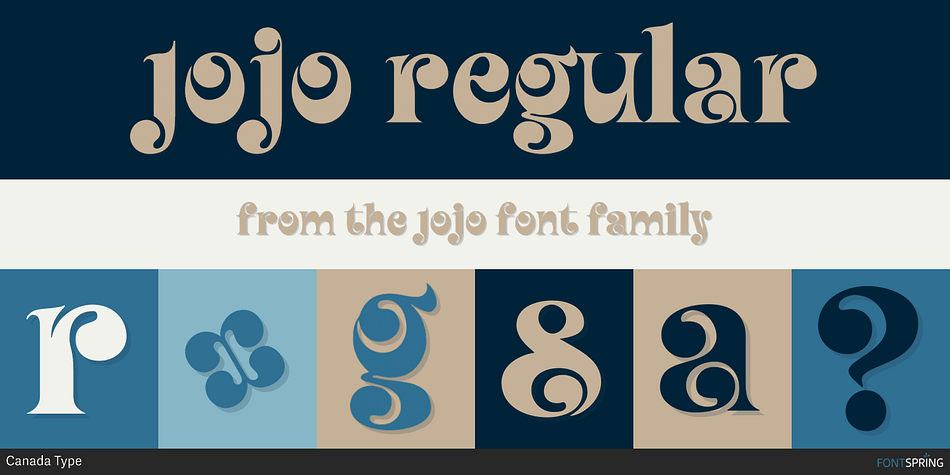
Jojo is a retro font published by Canada Type.
A little more flower and a little less power, please.
Fun, friendly, fashionable, and feminine to a fault, Jojo takes display typography to a whole new level, where eyes can’t help but appreciate the day and the design at hand. It takes a graphic designer very little imagination to see these letters on posters, book covers, clothes, and craft paraphernalia. Or how about a sign over a bakery? A music sleeve? A romantic comedy titling? Cosmetics products? Pretty much anywhere!
Jojo takes its name from a Beatles song about getting back to where we once belonged. It also takes most of its shapes from vintage photo-setting times, when an art nouveau typeface called Spring, by Bernice Jacquet, was putting the flower days back where they belonged, which was everywhere.
The original photo-setting face came in just 26 letters and 10 numerals, but once you check the character set you will see that Jojo has now been expanded to a full, complete font with punctuation, accented characters, and a whole lot of alternates and ligatures for maximum value.
If your design needs art nouveau with a loving spin, retro but not too retro, Jojo is the font for you.